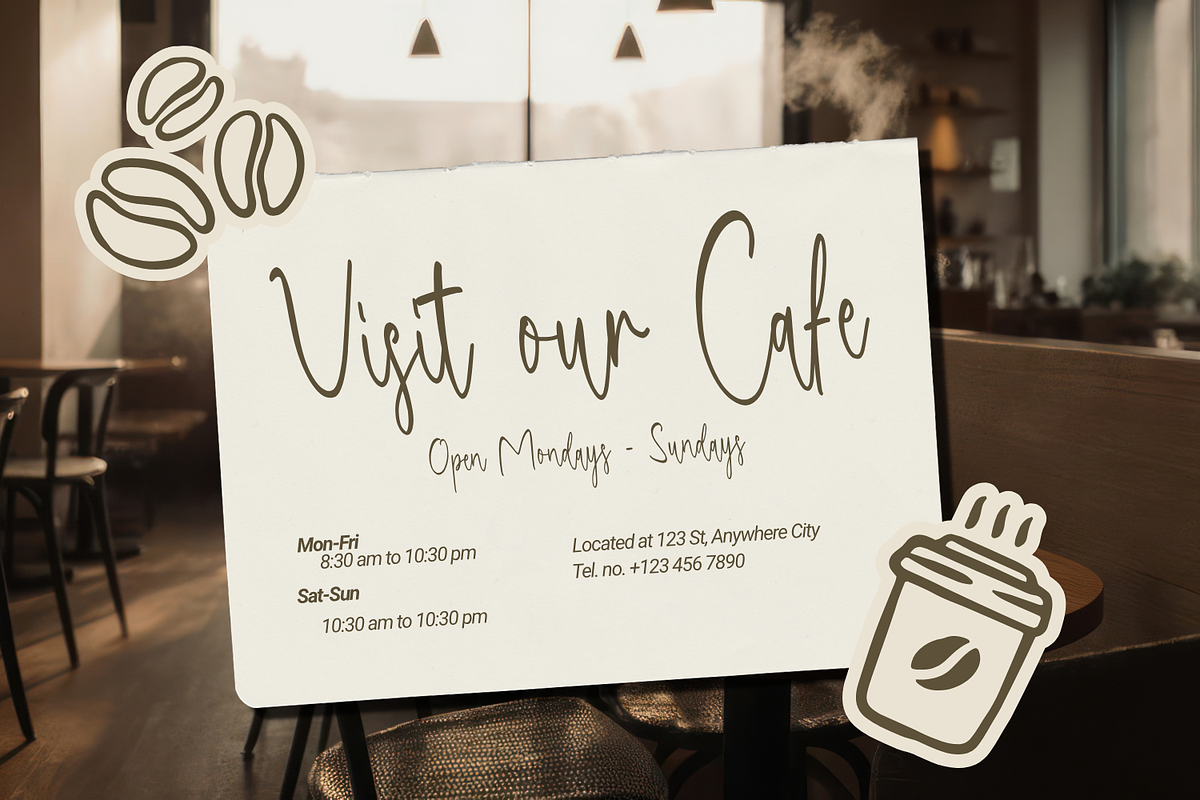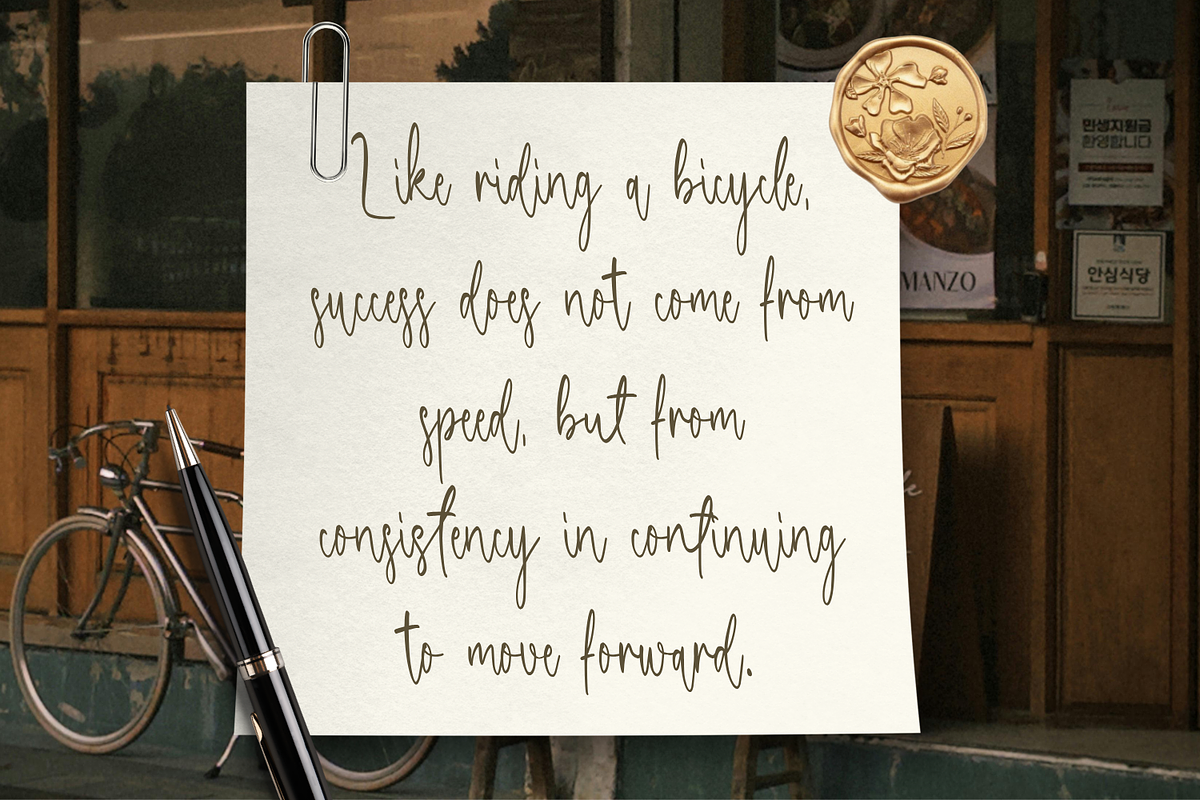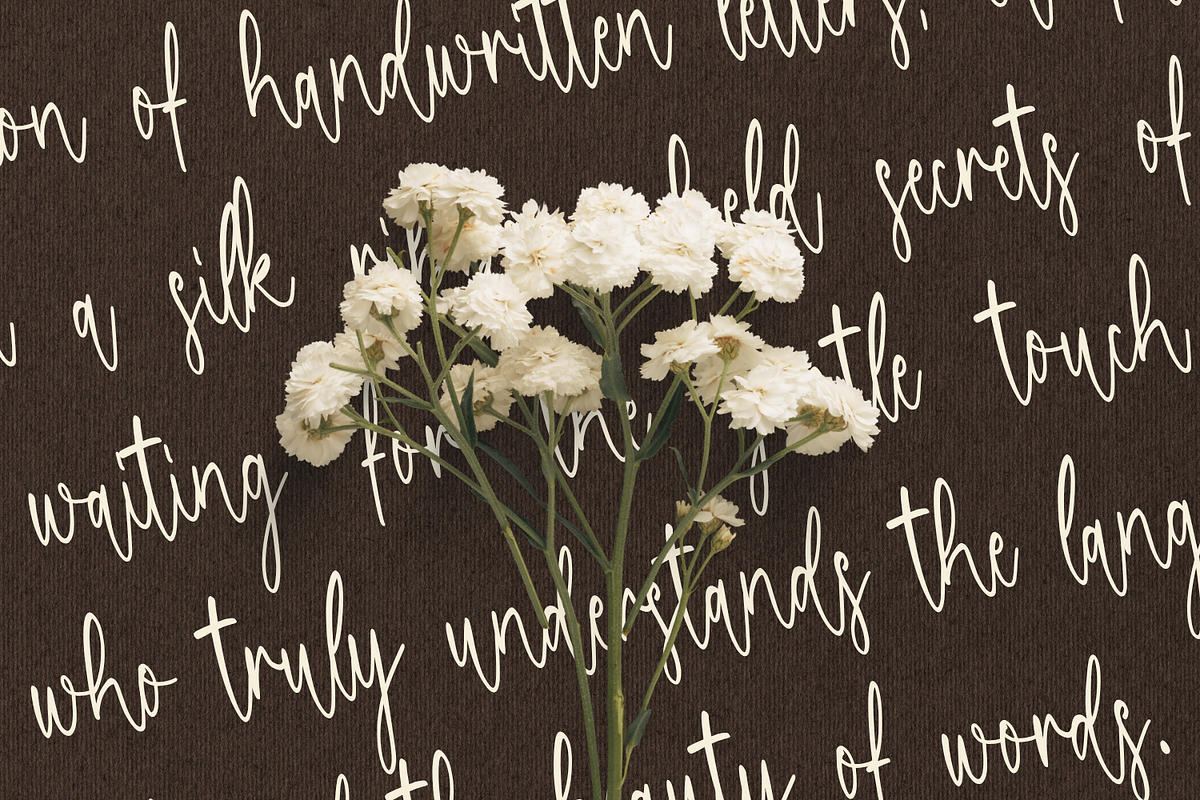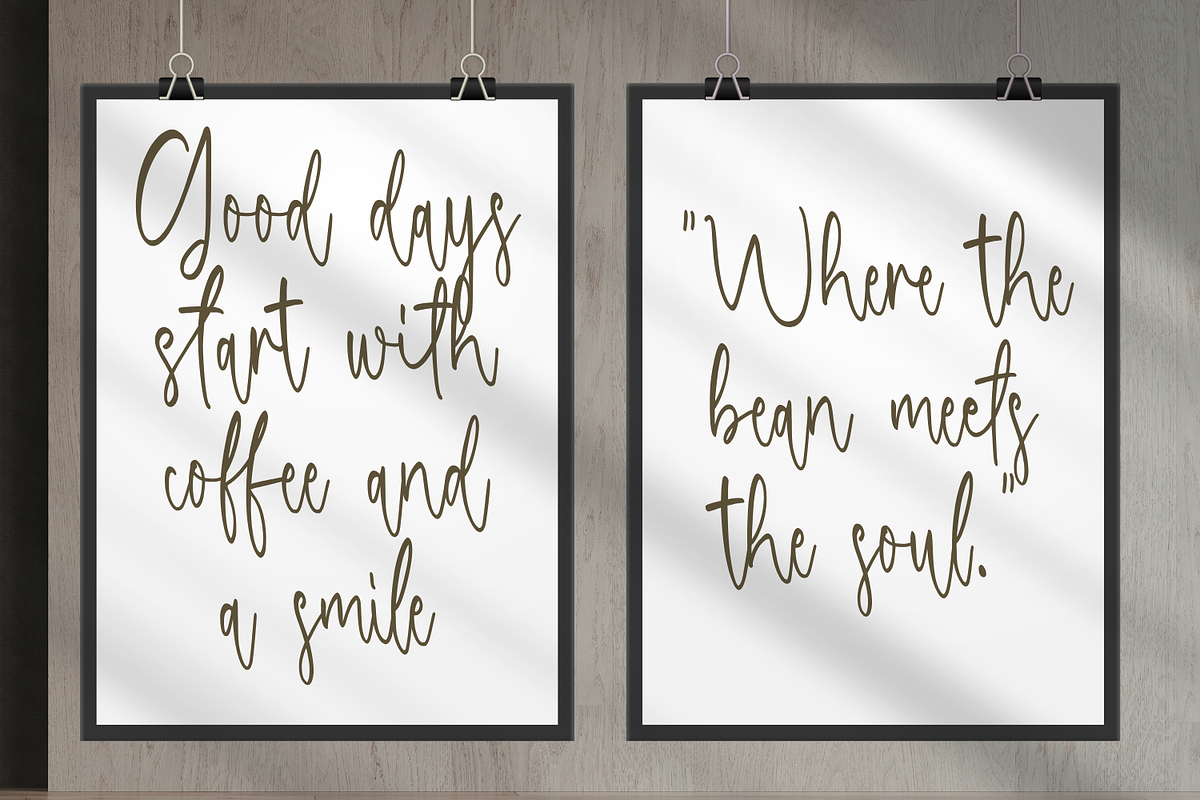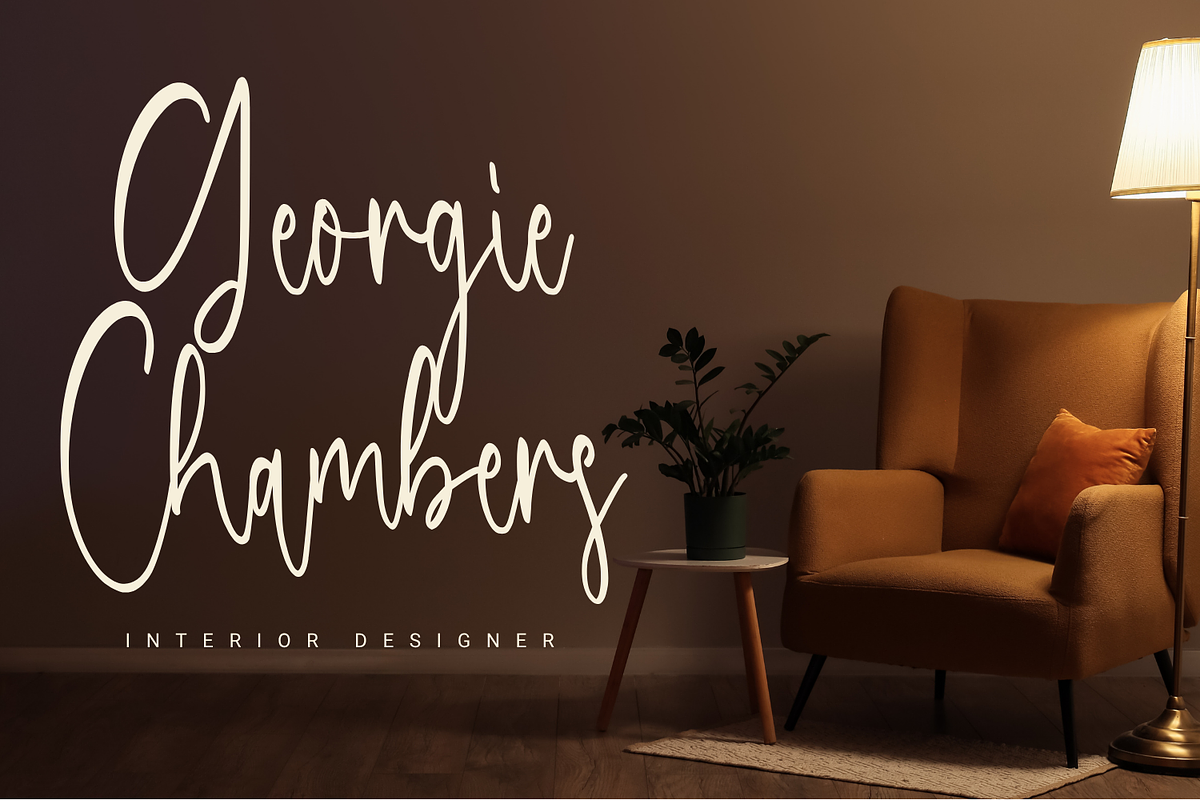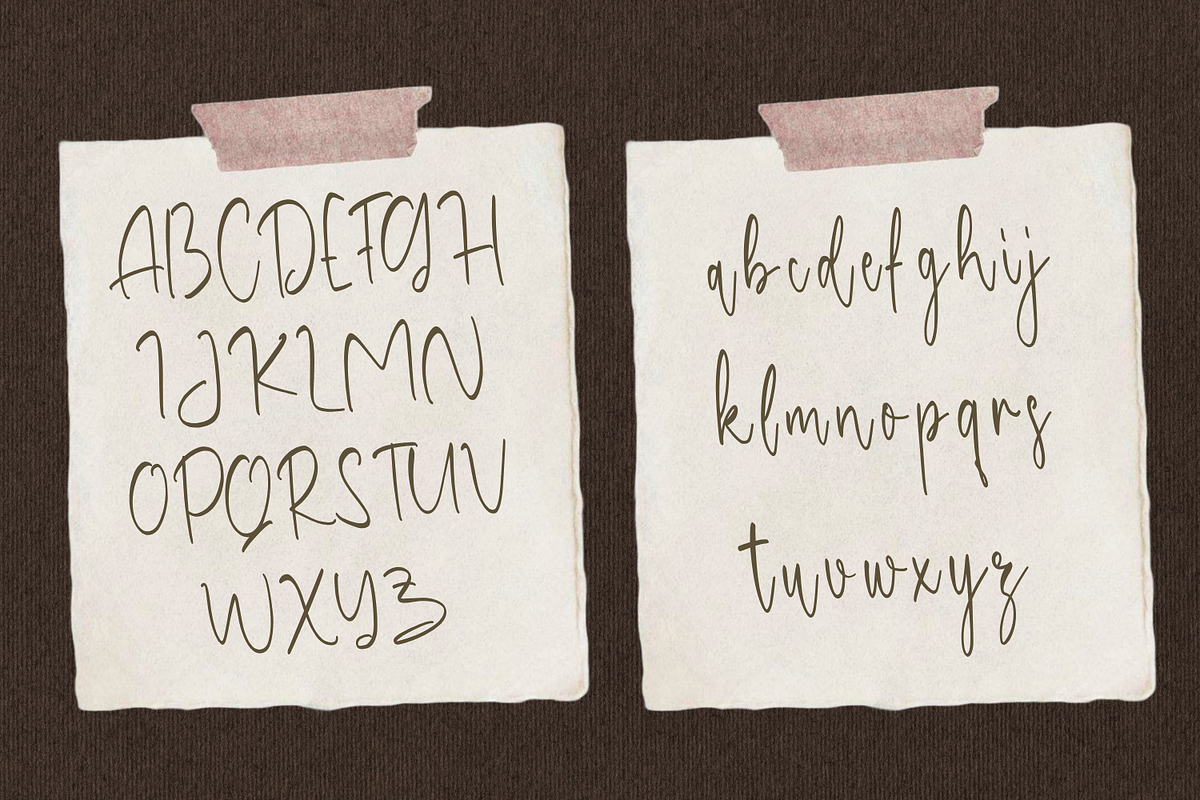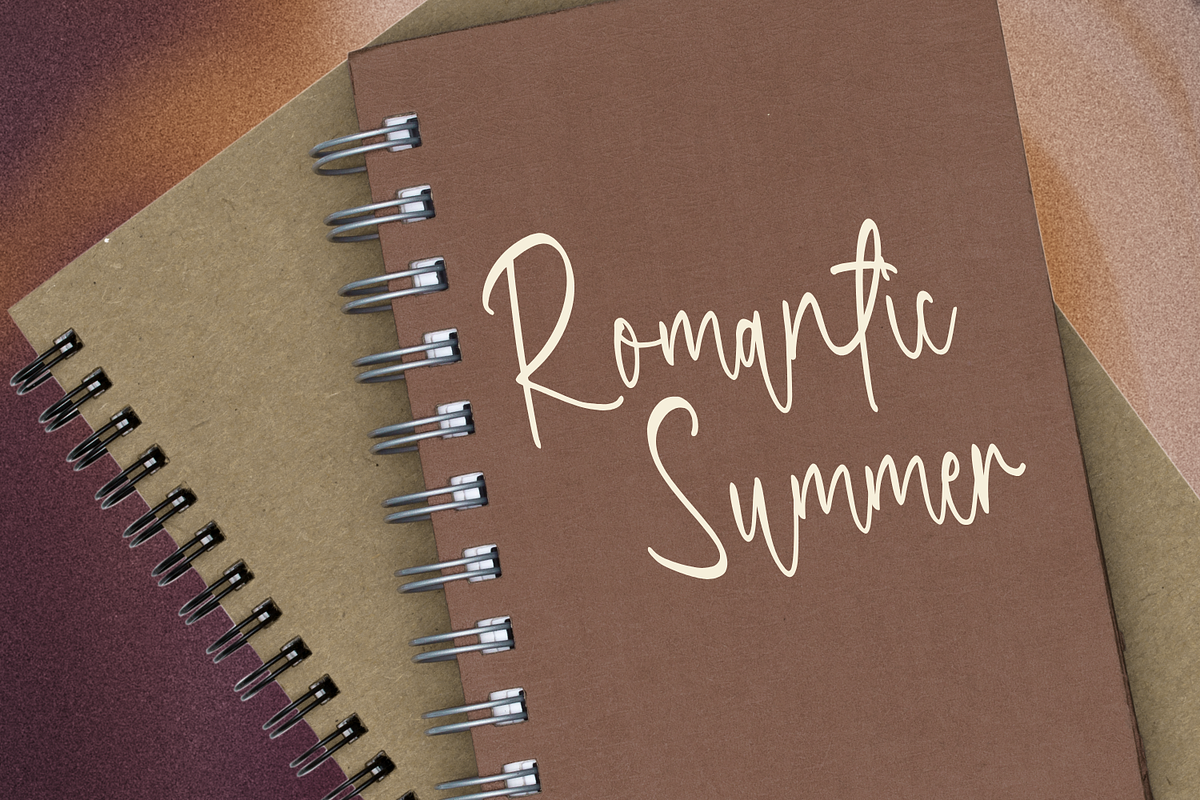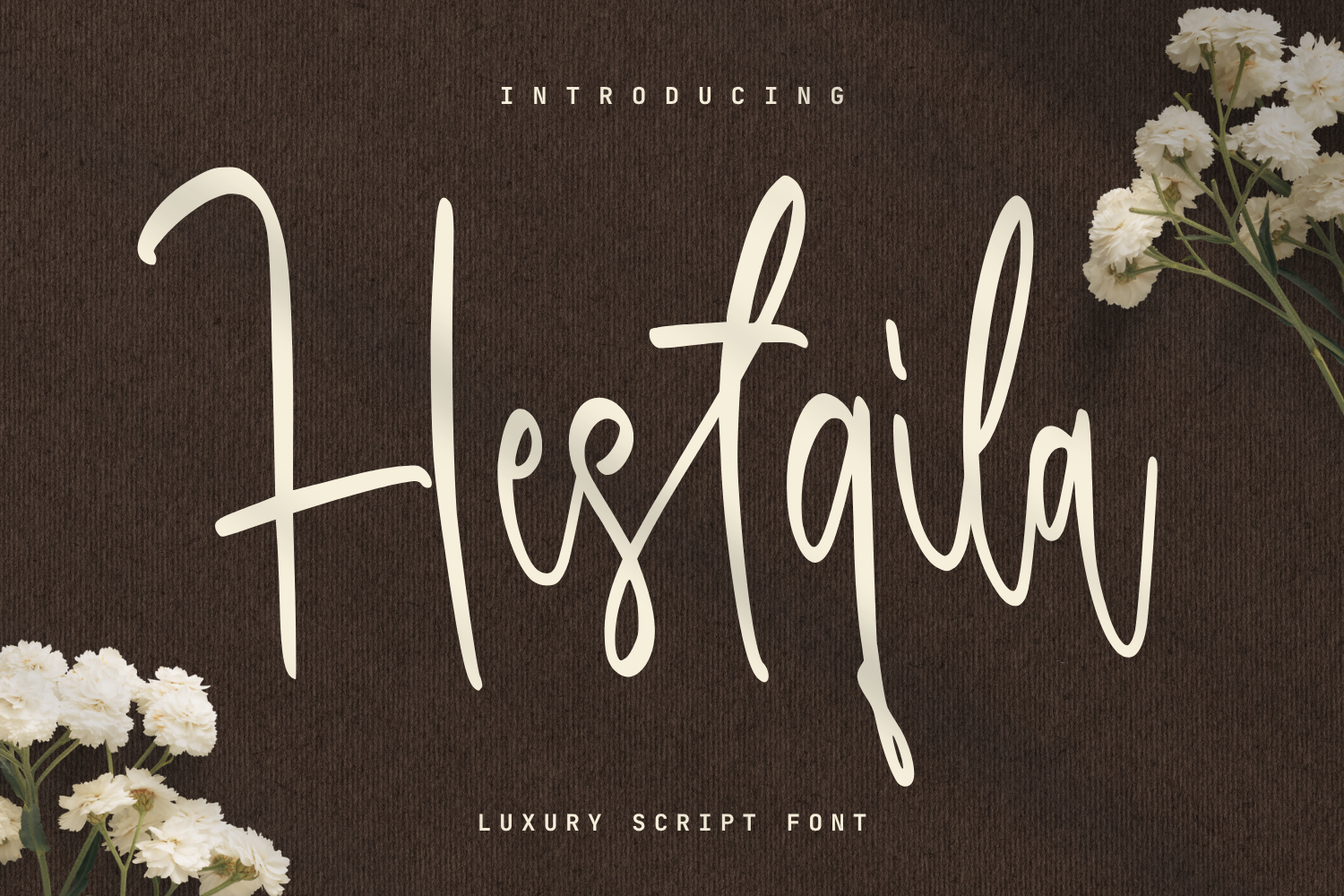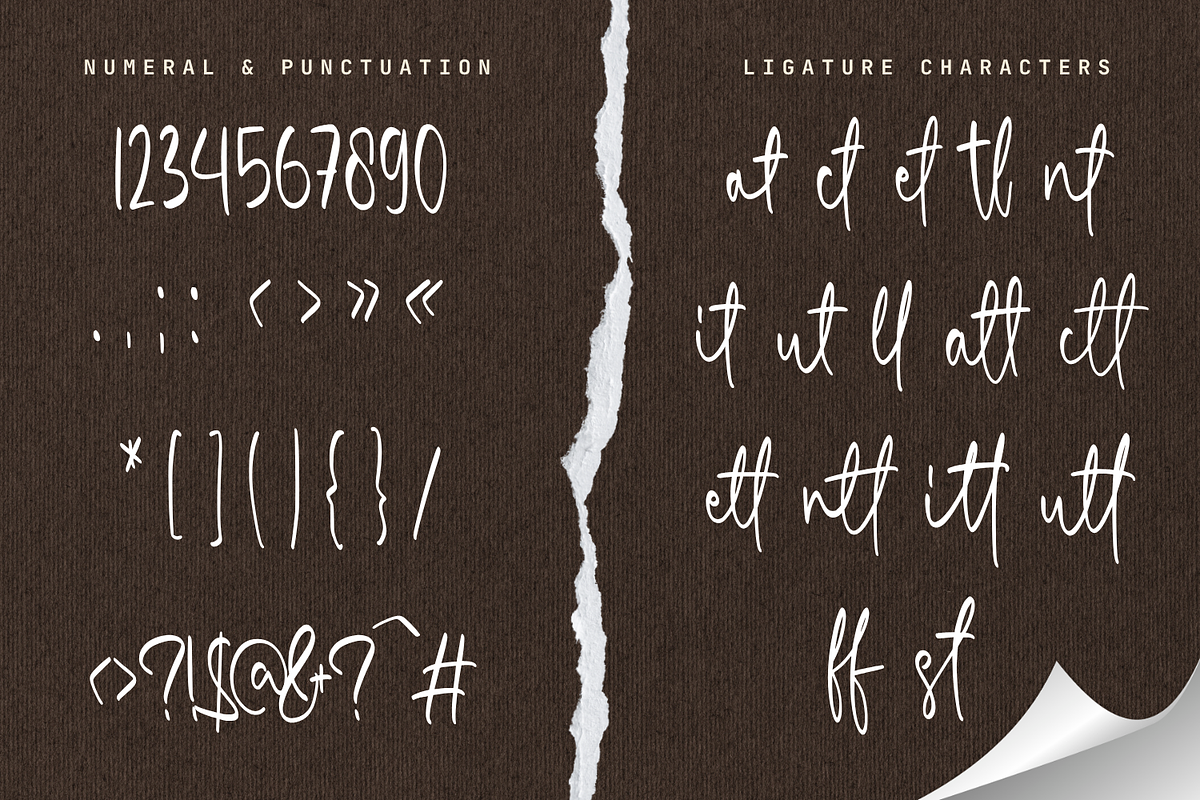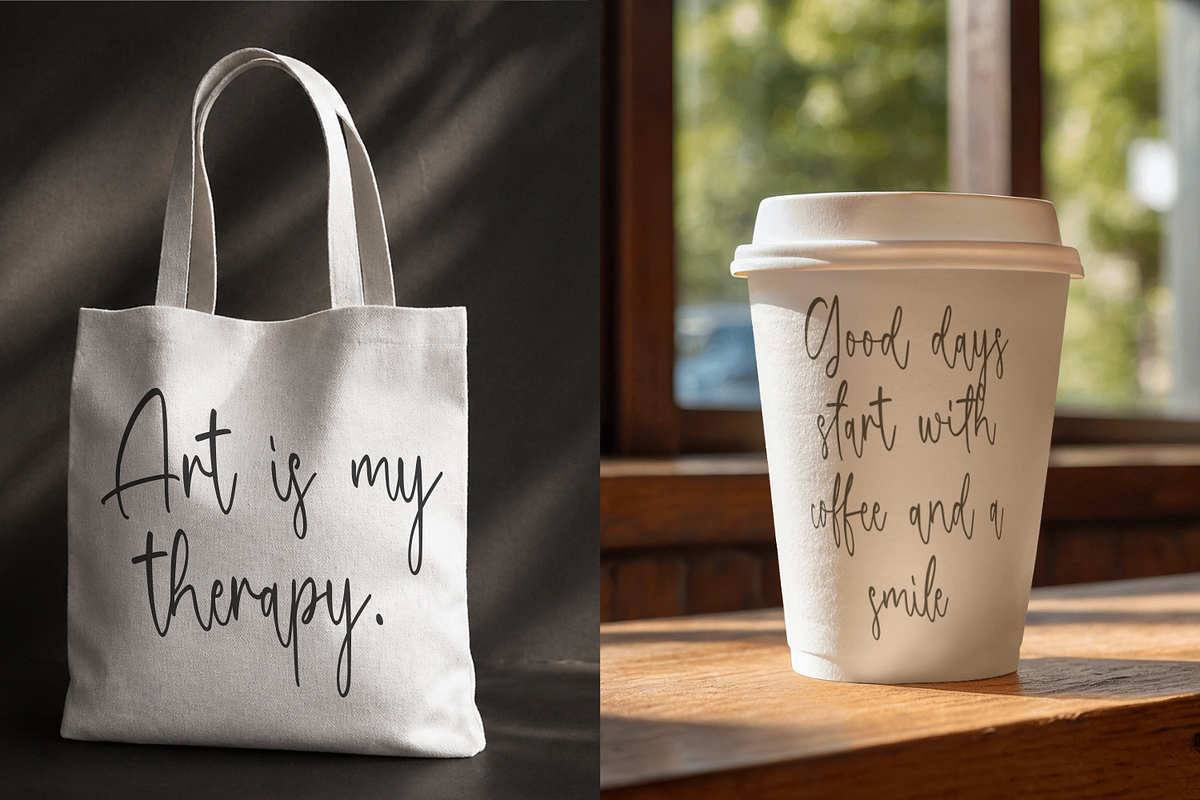
Hestqila - Luxury Script Font
Hestqila is a sophisticated script that embodies the essence of elegant typography. This luxury script is meticulously crafted to serve as a high-end handwritten font for diverse professional projects. Inspired by modern calligraphy, its fluid, organic strokes provide a premium aesthetic that stands out as a unique creative typeface.
Whether you are designing for high-end branding or editorial layouts, this professional script offers versatility and grace. It functions perfectly as an elegant lettering solution for those who appreciate refined details.
This font is highly versatile and ideal for various professional design needs, including:
Wedding Stationery & Invitations
Branding & Identity
Social Media & Digital Content
Signage & Home Decor
Book Titles & Editorial Design
Complete Character Set: Includes a full range of uppercase and lowercase letters with balanced, cohesive proportions.
Numbers & Punctuation: A full suite of numerals and punctuation designed to blend seamlessly with the letterforms.
OpenType Features: Enhanced with various optional ligatures to improve visual flow, giving it a natural, fluid handwritten appearance.
Multilingual Support: Supports a wide range of languages, ensuring global flexibility for your projects.